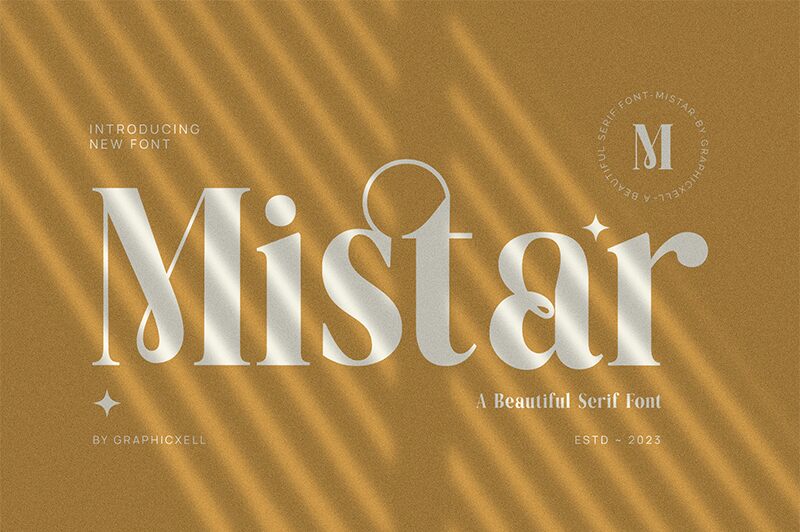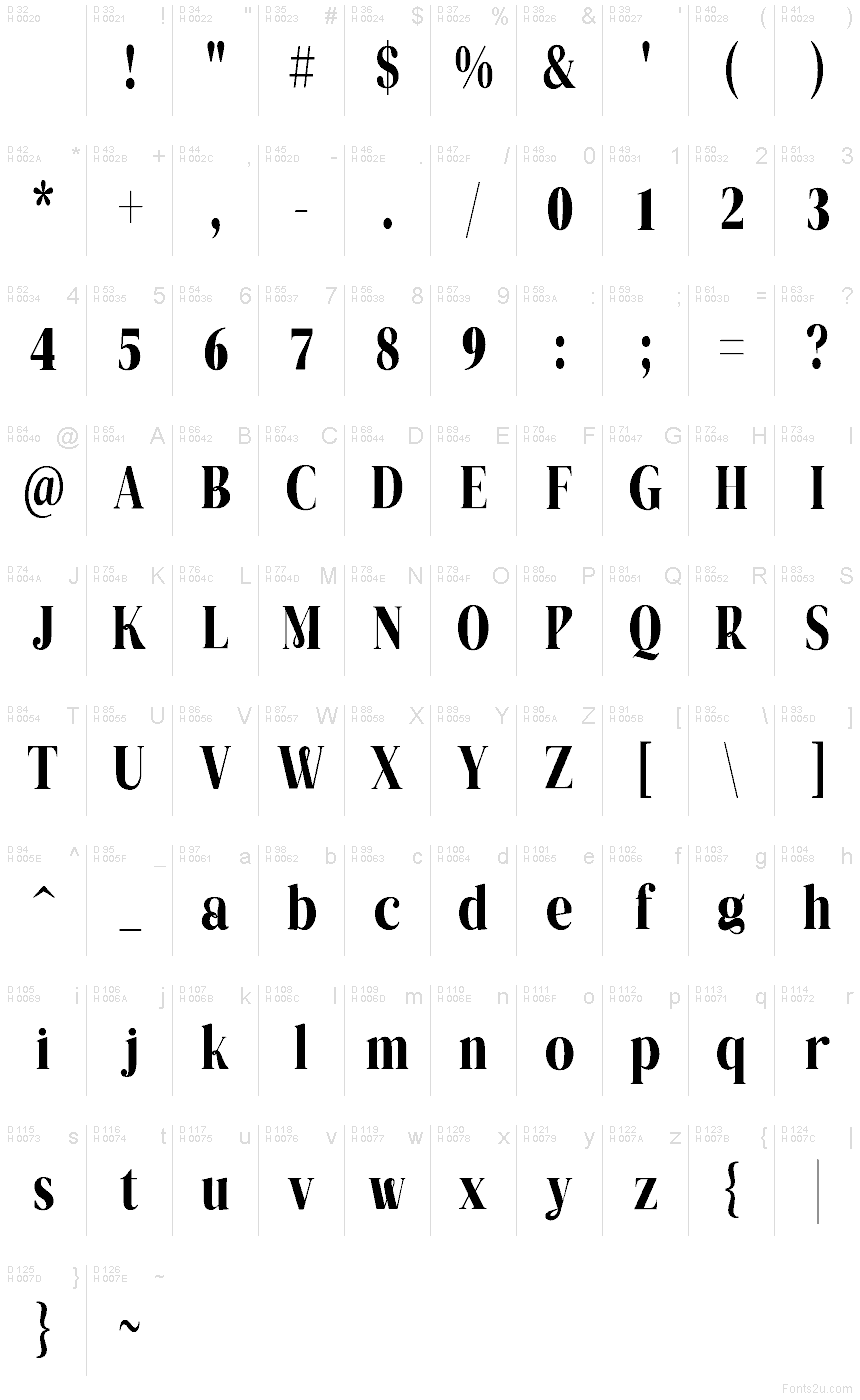
Mistar
Mistar font by Graphicxell is a free serif typeface with a theatrical streak: thick, inky stems meet ribbon-like curves that loop and tuck with surprising grace. The letters feel sculpted rather than drawn, mixing firm verticals with velvety arcs so headlines land with weight while still moving like calligraphy. Details like the curled terminals and carved counters give it a plush, tactile presence.
Using Mistar, you get stately posture without stiffness—great for magazine mastheads, boutique logos, book covers, wine or beauty packaging, event invitations, and poster titles. This free font shines at larger sizes; pair it with a quiet grotesque sans to handle body copy and let Mistar carry the name.